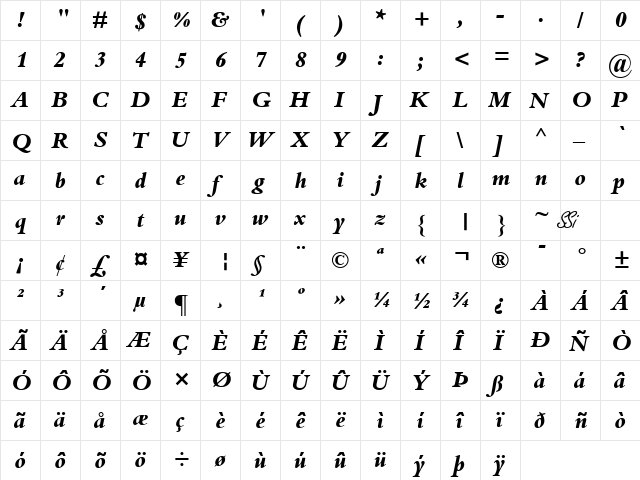
Kuriakos Black SSi Extra Bold Italic Font Preview
Design Context for Kuriakos Black SSi Typeface
Kuriakos Black SSi offers clean, dependable letterforms without strong stylistic allegiance, making it a practical choice for designers who need flexibility. The dynamic lean of this cut emphasises speed and emphasis in any layout. Its bold stroke weight gives it real presence on the page.
Pro Tip: Try Kuriakos Black SSi for annotation and caption copy alongside an upright companion — the contrast in angle creates a dynamic but ordered typographic system.